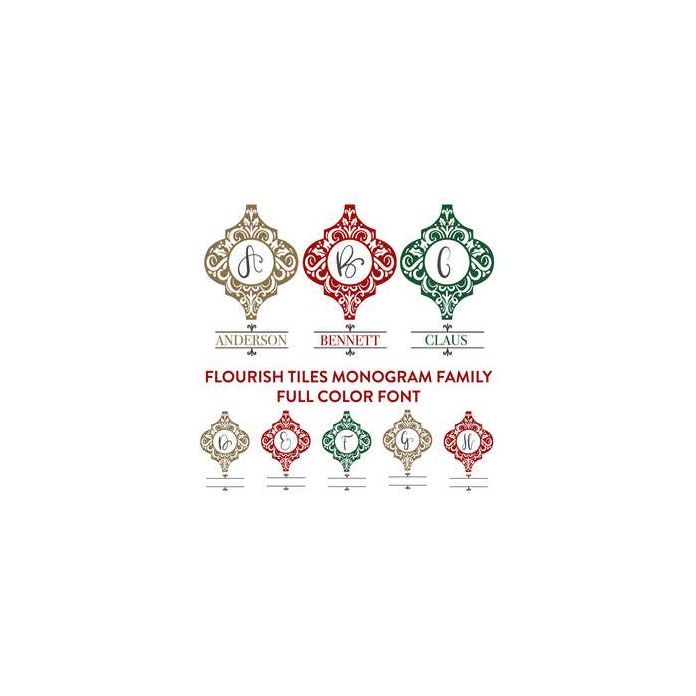
flourish tile monogram family full color font
This full color otf font comes with 26 hand drawn monogram letters and three color hand drawn flourish tiles.